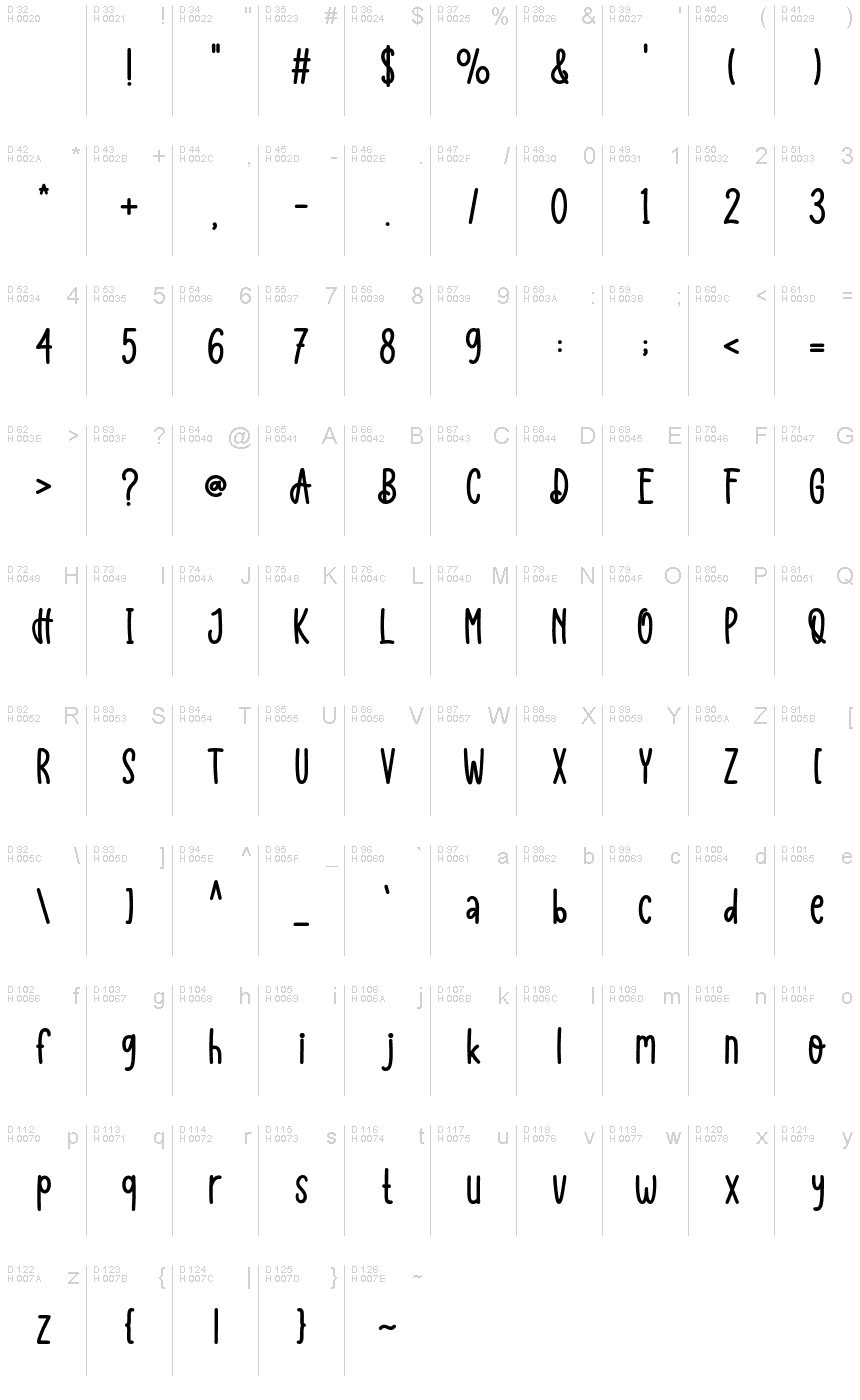
Meet Catalina Vanessa, the charming semi-light font by Nirmala Creative. Its condensed width and cute handwritten style make it perfect for projects that require a touch of whimsy and playfulness. Whether you're designing invitations, greeting cards, or social media graphics, Catalina Vanessa will add a delightful flair to your work. Its legibility also makes it suitable for branding materials such as logos and packaging. With its cheerful personality and versatile application, Catalina Vanessa is a must-have for any designer looking to inject some joy into their designs.
Catalina Vanessa